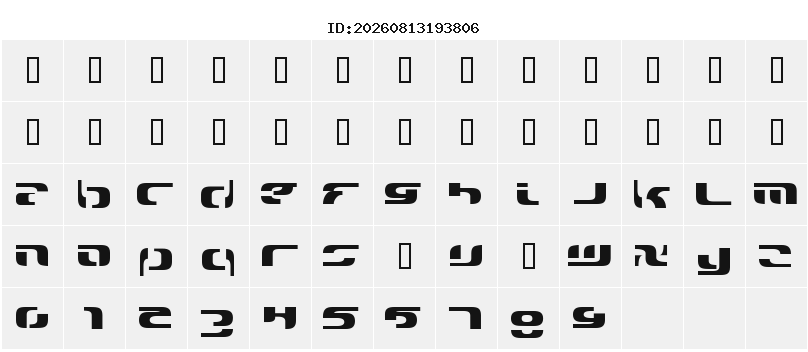
solar2000 Preview
• Font Name: solar2000
• Full Font Name: solar2000
• PostScript Name: Solar2000
About solar2000.ttf
solar2000.ttf is a modern, elegant sans-serif font designed for ultimate readability and visual harmony. Perfect for branding, headlines, web design, and print materials.